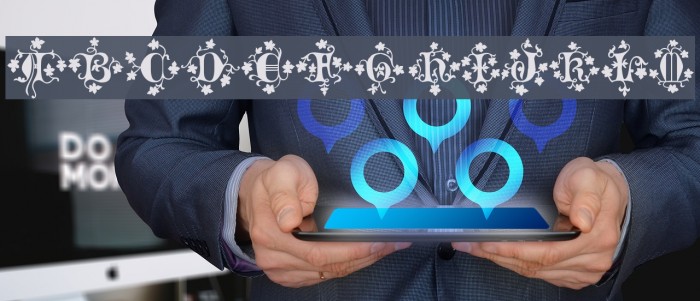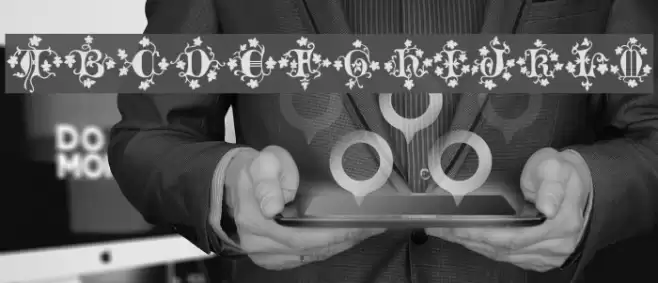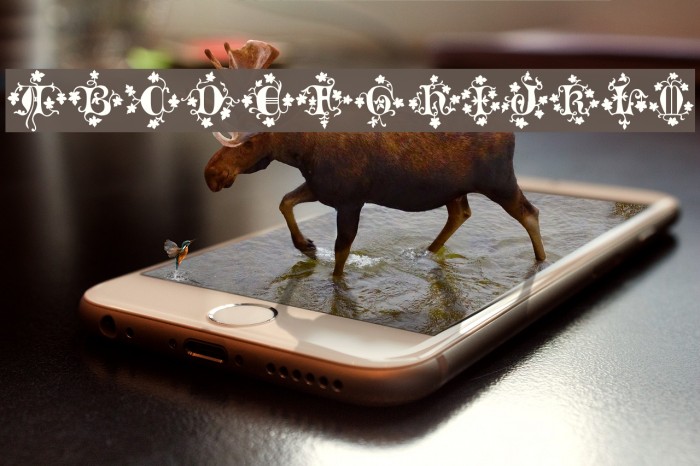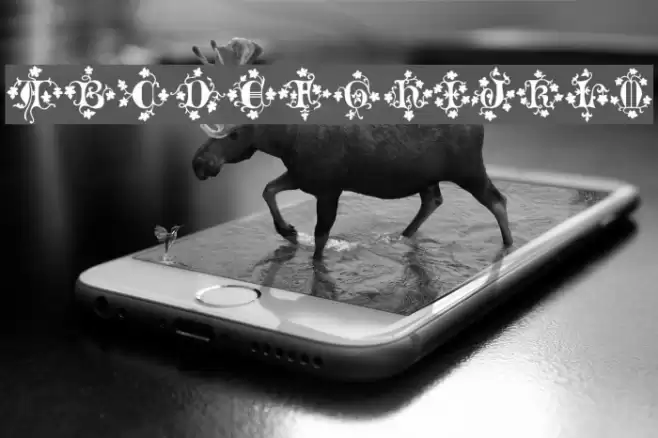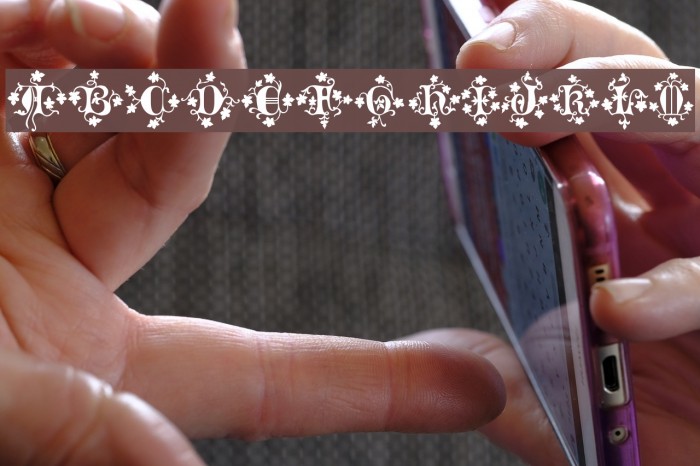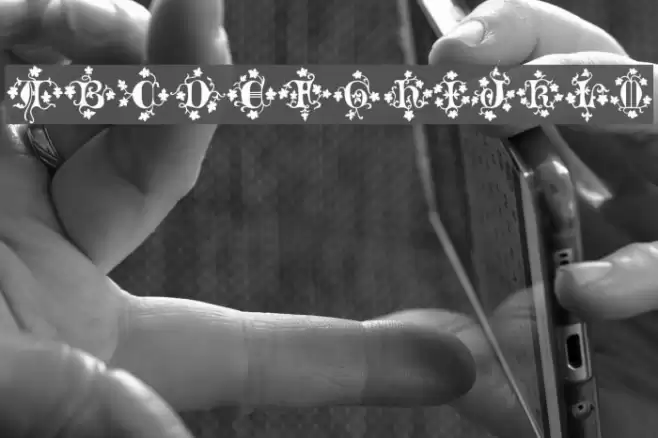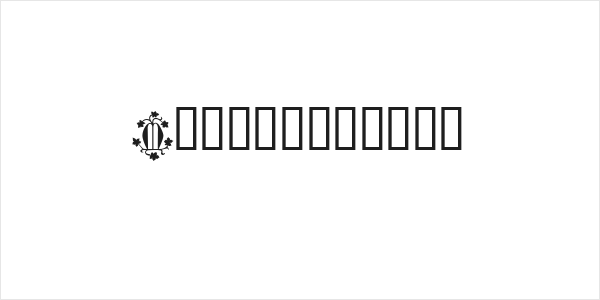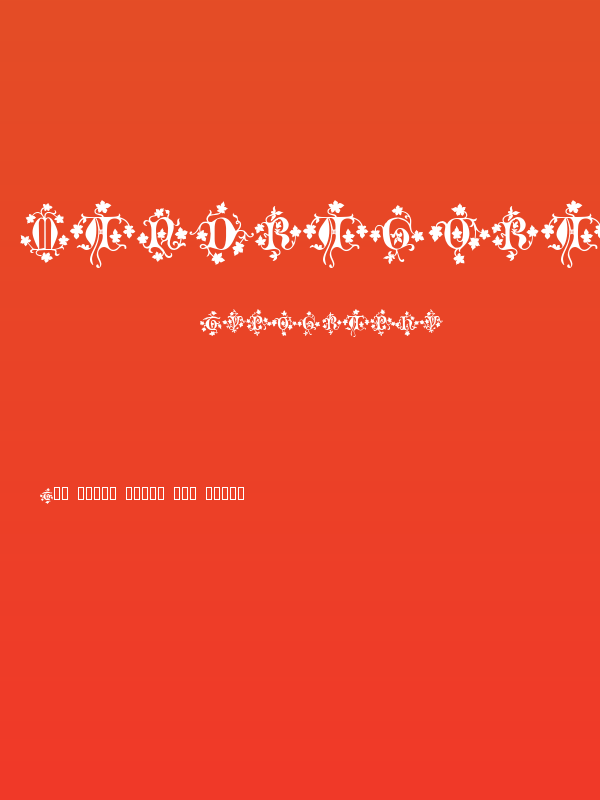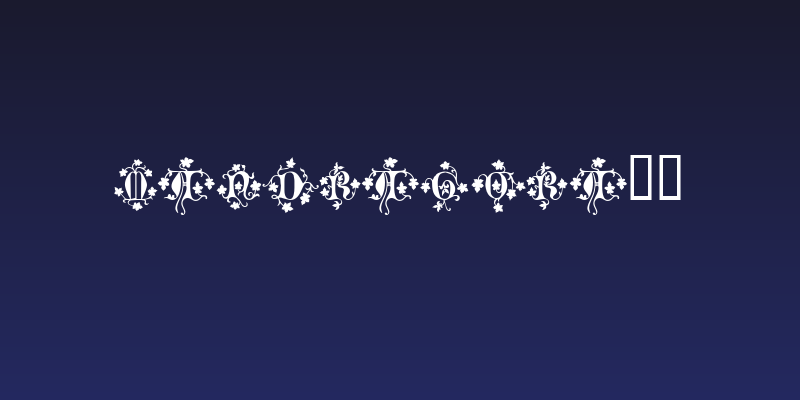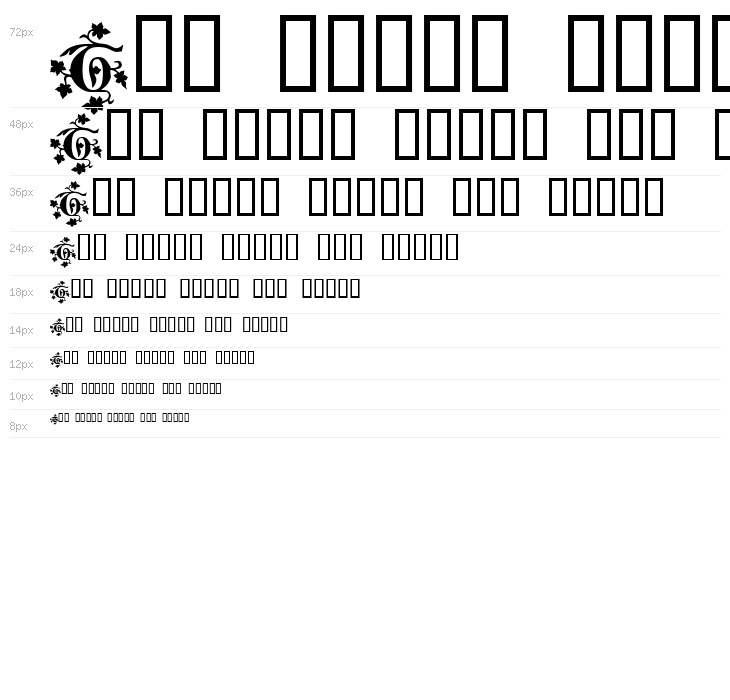
Mandragora!" Font
Mandragora!" Description
This font features an intricate and decorative style, reminiscent of medieval manuscripts. Each letter is adorned with elaborate flourishes and embellishments, creating a sense of elegance and historical charm. The ornate design includes floral and vine-like elements that intertwine with the characters, making it highly decorative and visually captivating. The uppercase letters are particularly elaborate, with each character appearing as a unique piece of art. This font is ideal for projects that require a touch of vintage or historical flair, such as invitations, certificates, or themed event materials.
Overall StyleVintage
Use CaseHeadlines, Decorative purposes
Proposed ProjectsIdeal for invitations, certificates, themed events, and historical or fantasy projects.